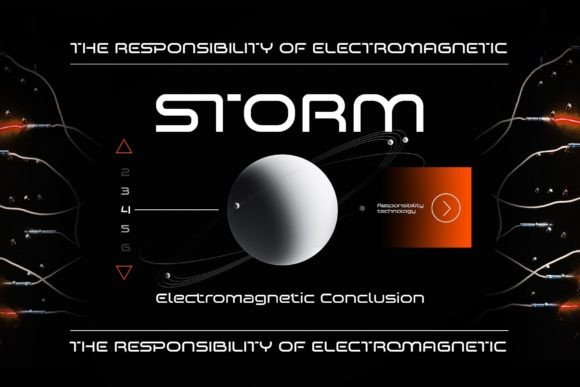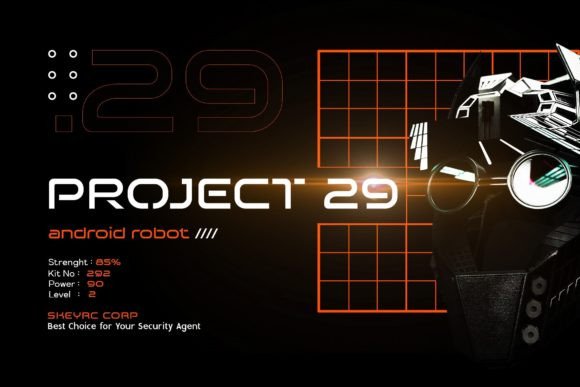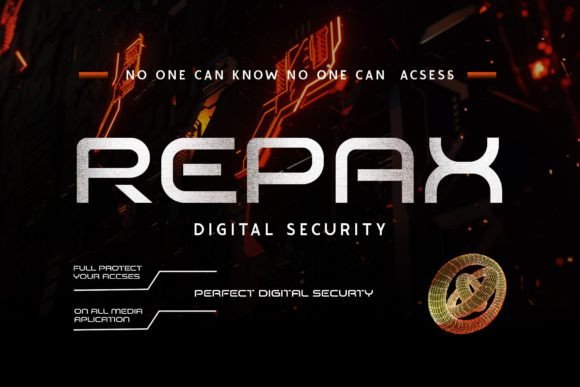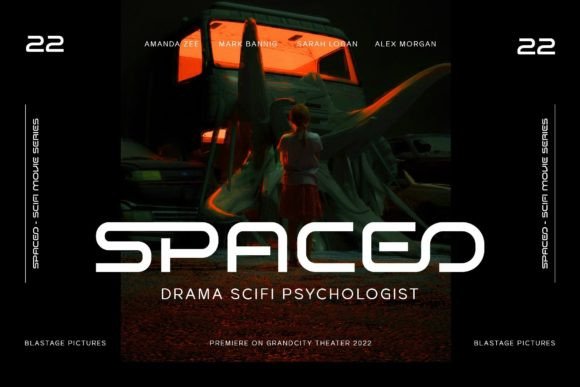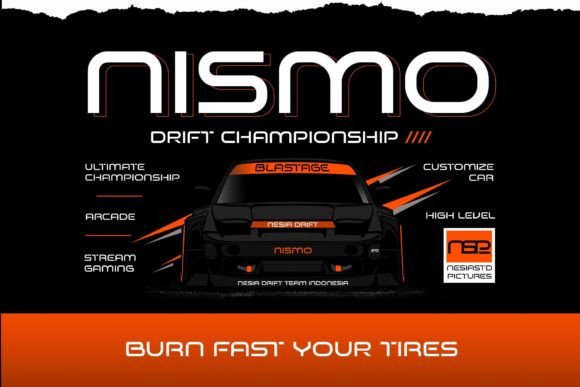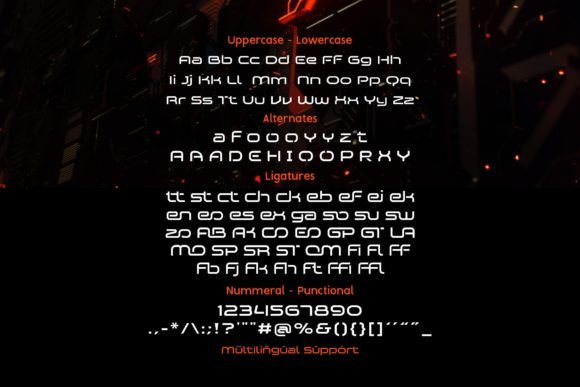
Introducing Blastage Font: The Futuristic Typeface for Modern Design
In the world of design, a font can make or break a project’s aesthetic. With the rise of technology and futuristic themes in design, a font that embodies the spirit of innovation and modernity is essential. Meet Blastage Font, a cutting-edge typeface that draws inspiration from the visual language of technology, sci-fi movies, games, and modern gadgets.
A Futuristic Font with a Minimalist Twist
Blastage Font is a masterfully crafted typeface that combines minimalist style with unique letterforms, making it a perfect choice for designers looking to add a touch of futurism to their work. The font’s clean lines, simple shapes, and bold structure evoke a sense of sleekness and sophistication, perfect for creating stunning logos, labels, posters, packaging, and more.
Blastage Font is an incredibly versatile typeface that can be used across a wide range of design applications. Whether you’re working on a logo, poster, book, movie, presentation, game, or any other project, this font is sure to make a statement. Its futuristic look and feel will instantly elevate your design, adding a touch of modernity and innovation.
One of the standout features of Blastage Font is its PUA (Private Use Area) encoding. This means that designers can easily access all the amazing glyphs and ligatures, making it simple to incorporate them into their work. With Blastage Font, you can unlock a world of creative possibilities, from intricate designs to bold statements.
Key Features of Blastage Font
- Futuristic design: Inspired by the visual language of technology, sci-fi movies, games, and modern gadgets.
- Minimalist style: Clean lines, simple shapes, and bold structure for a sleek and sophisticated look.
- Unique letterforms: Each letter is carefully crafted to create a truly unique and futuristic feel.
- PUA encoded: Easy access to all glyphs and ligatures for added creative flexibility.
- Highly versatile: Suitable for a wide range of design applications, from logos and posters to books and games.
Why Choose Blastage Font?